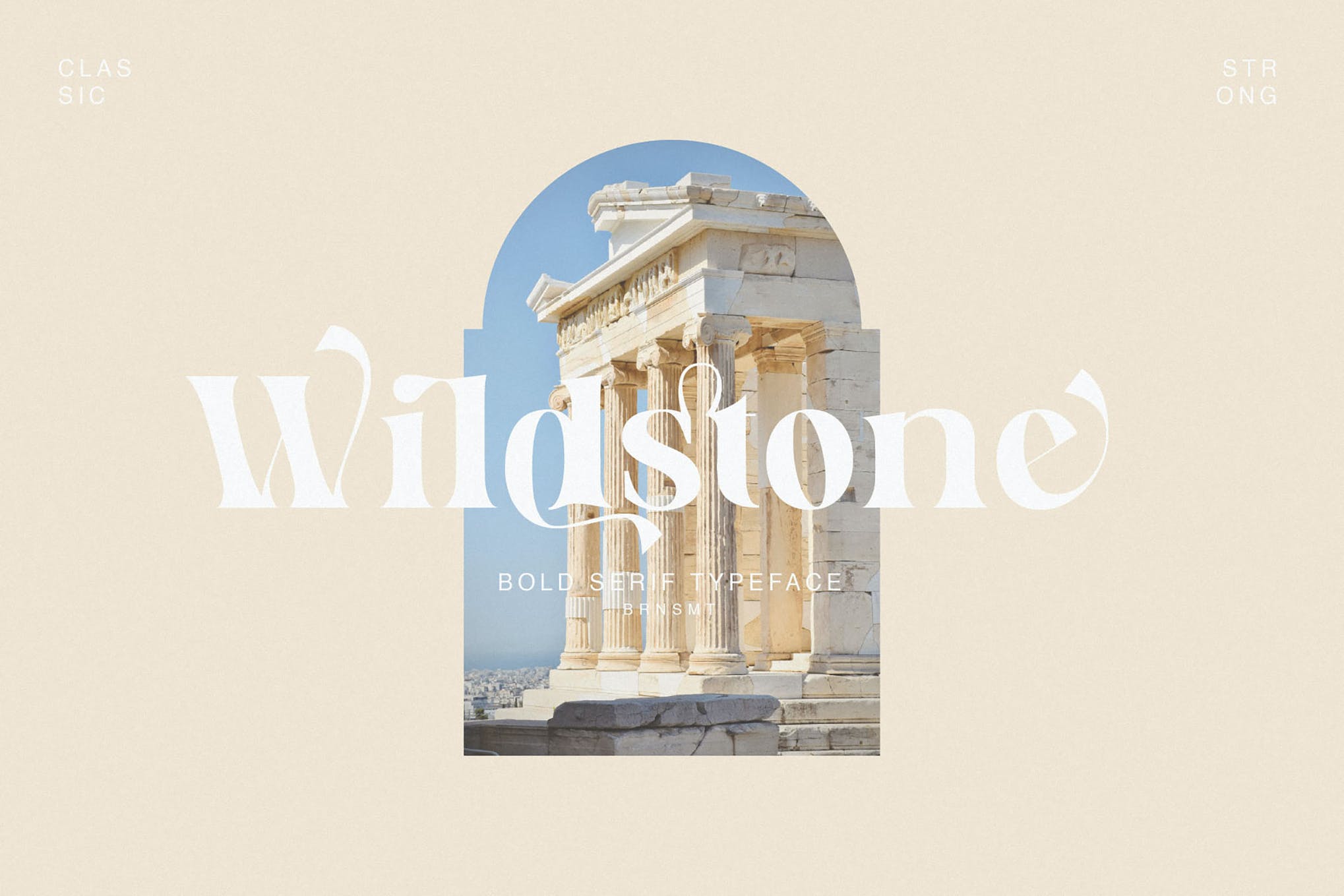
Wildestone Classy Font
Introducing our new "Wildstone", Modern ligature typeface with Unique shapes, Classy and Stylish. Is perfect for branding, logos, invitation, master heads, and more.